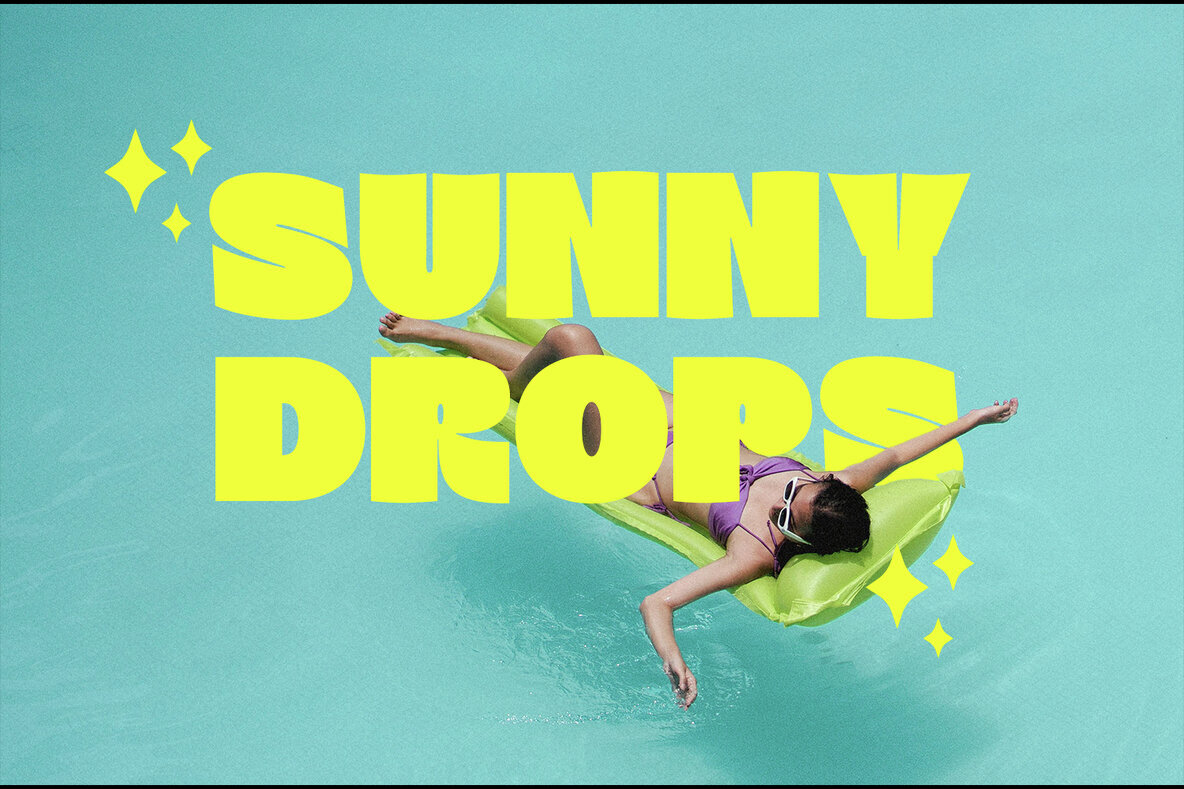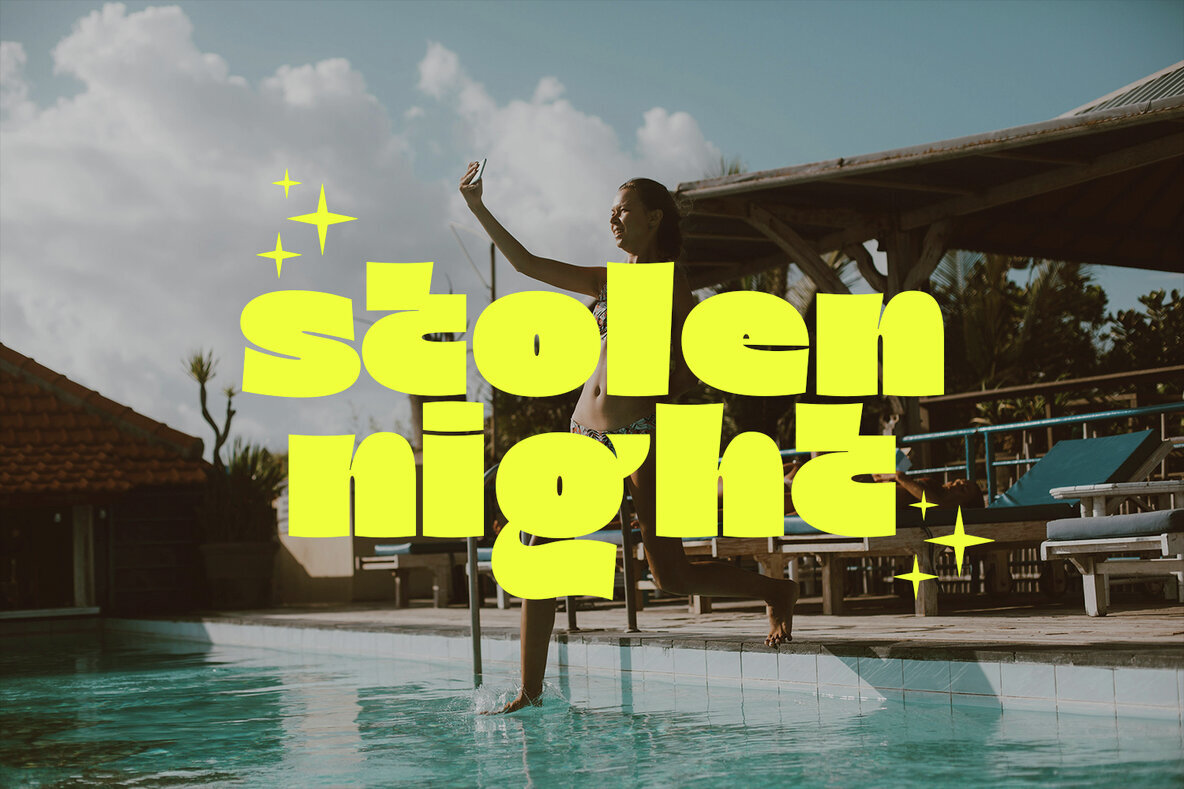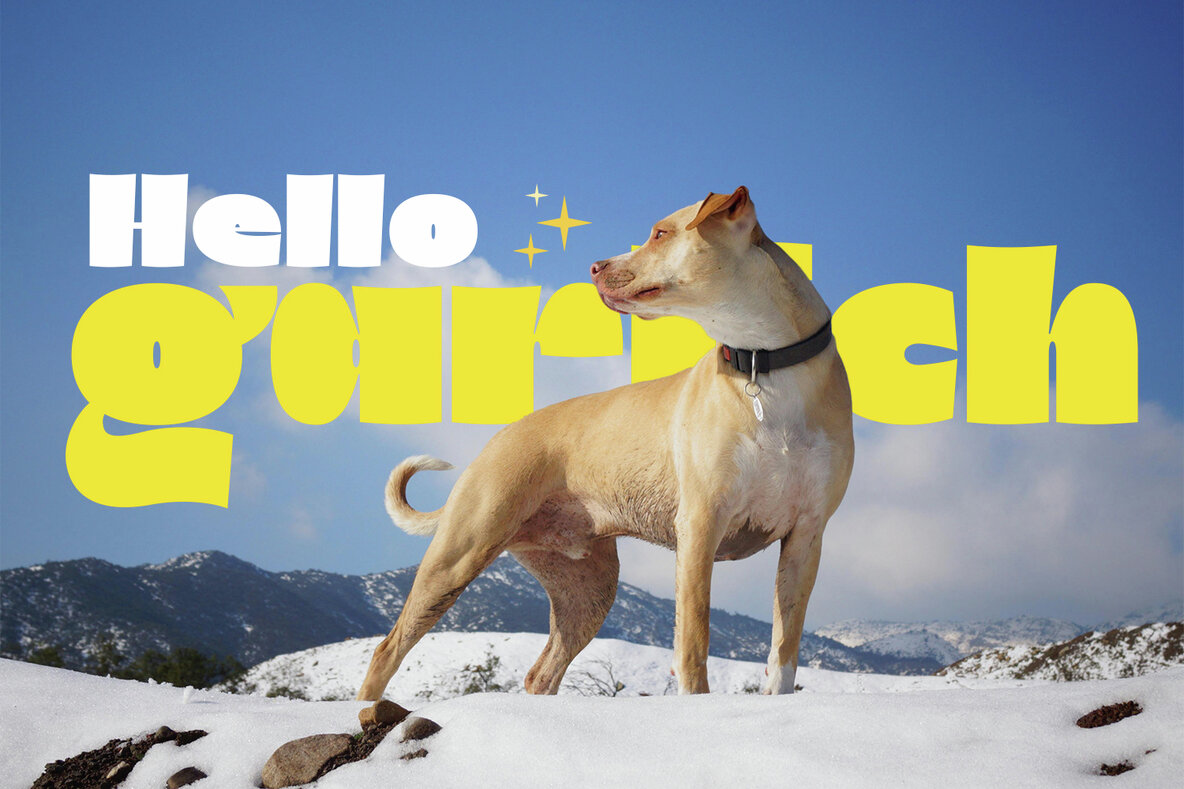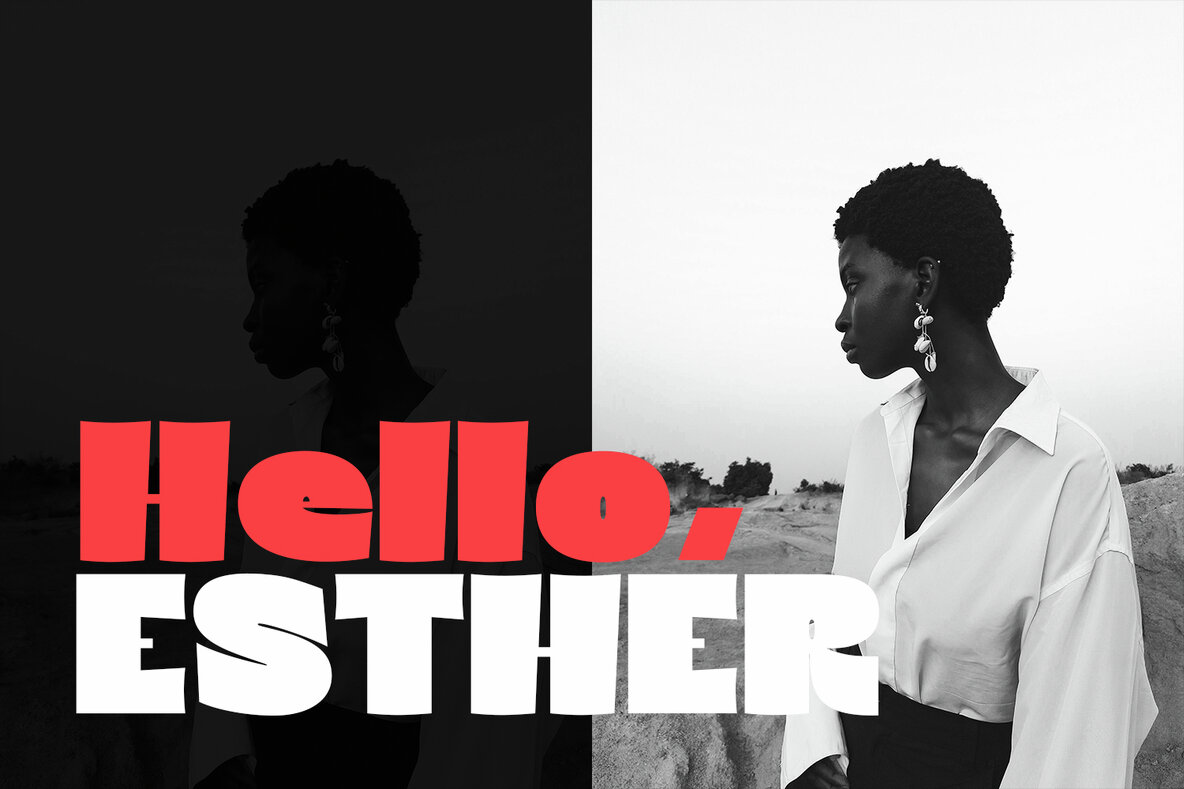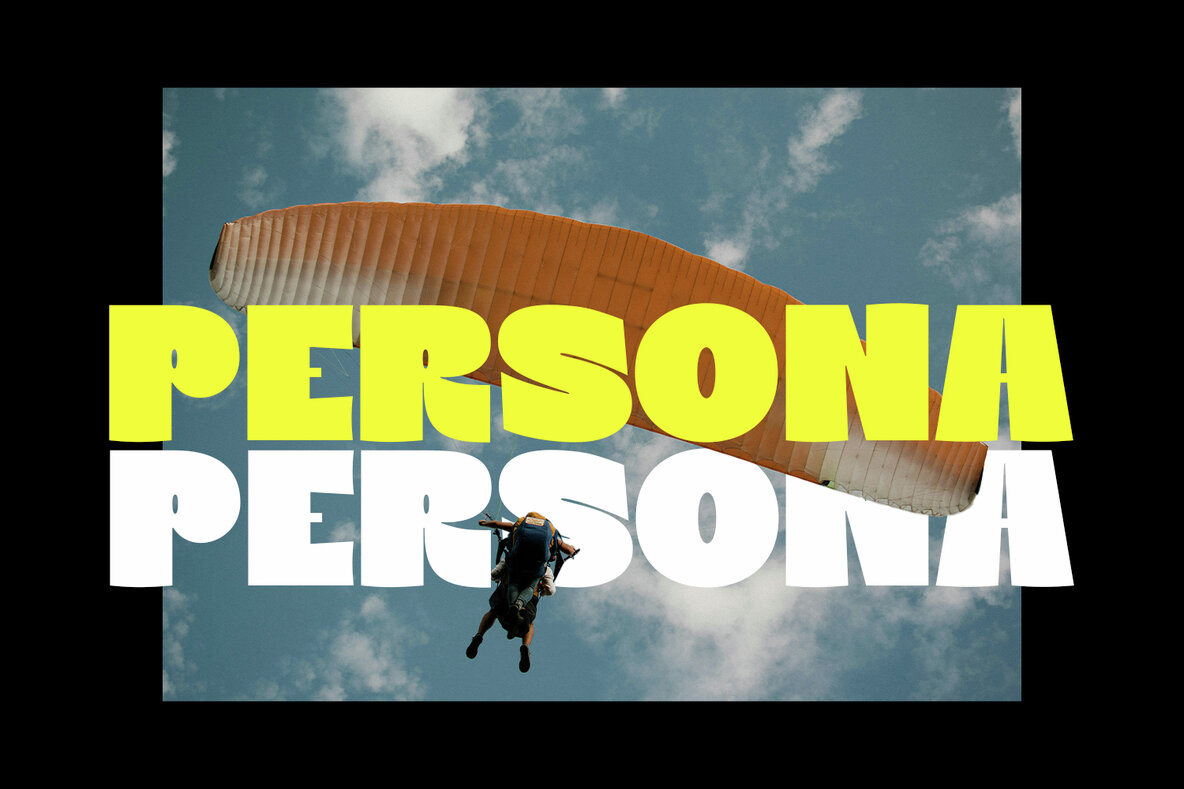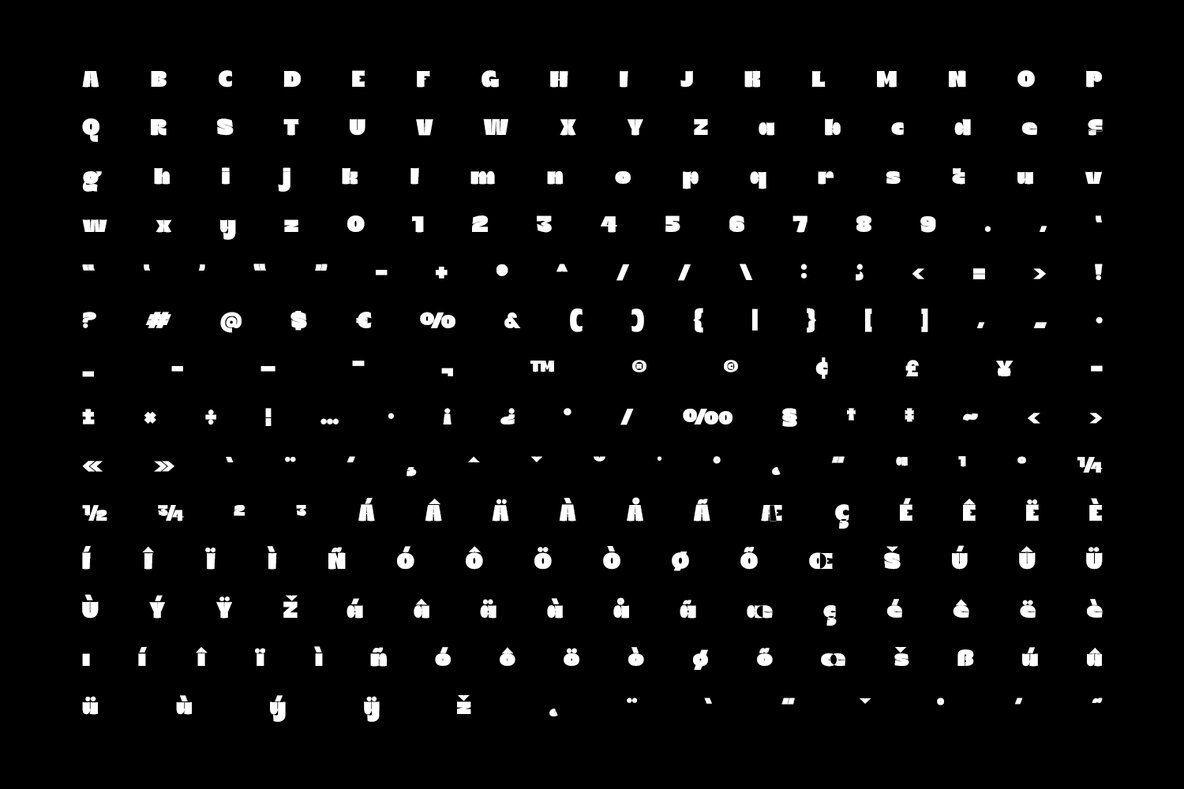
Eclister Font
Eclister Display Typeface Black
Eclister is a bold display font tailored for a wide range of creative projects. Its versatility shines across different themes, making it an essential tool for graphic and digital designers. In horror and Halloween projects, Eclister's sharp and dramatic strokes introduce a chilling effect, perfect for creating eerie movie posters, haunted house flyers, and spine-tingling invitations. On the festive front, Eclister softens with rounded edges and a playful form, making it ideal for Christmas cards, holiday promotions, and festive branding, adding warmth and cheer to your seasonal designs.
For food and restaurant branding, Eclister offers bold visibility, with clean and strong lines that highlight key menu items or promotional materials effectively. Its dynamic form ensures your designs stand out, whether on menus, packaging, or business branding. In comic and creative projects, Eclister's exaggerated and fun cartoonish vibe brings life to comic panels, speech bubbles, and graphic art, infusing them with energy and personality. From creepy horror aesthetics and festive Christmas charm to enticing food menus and quirky comic designs, Eclister is a versatile font ready to enhance any theme with its distinct boldness.